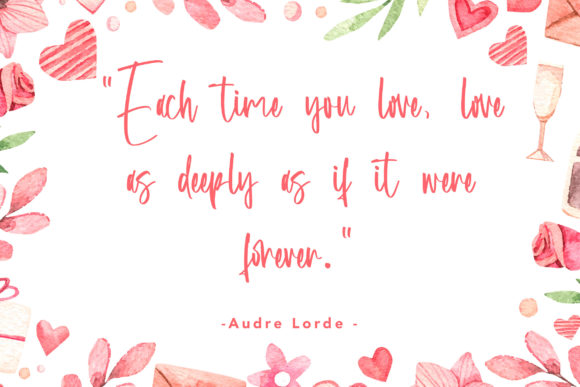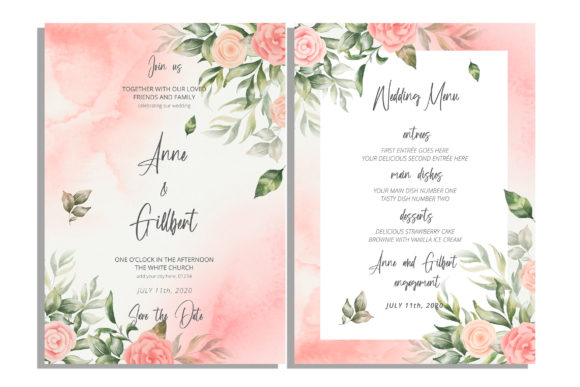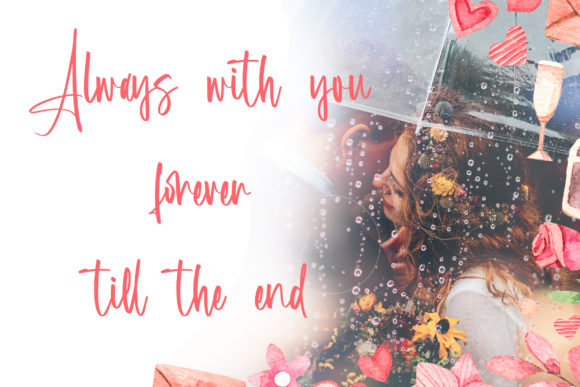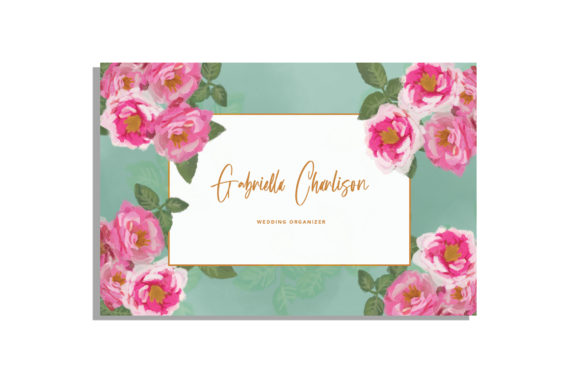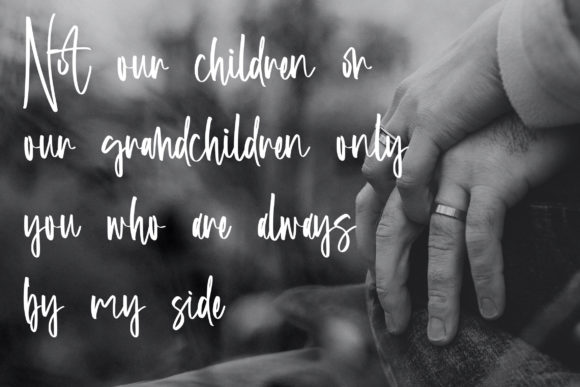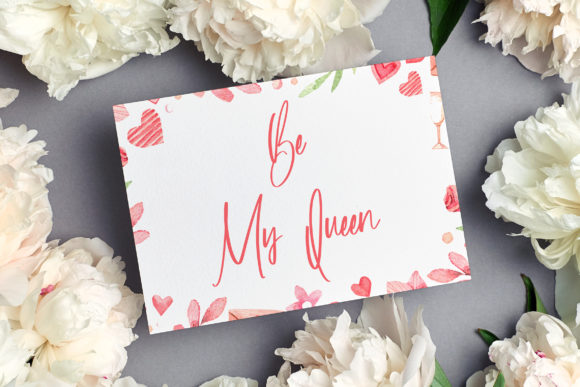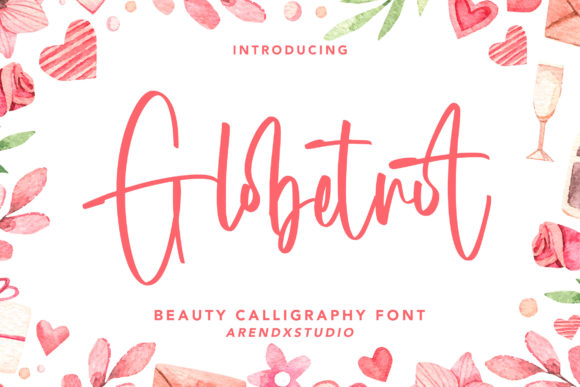
Introducing Globetrot Font: Elevate Your Designs with Elegance
Are you on the hunt for a font that exudes elegance and sophistication? Look no further than Globetrot Font, a stunning handwritten font that is sure to capture your heart. With its flowing lines and timeless style, Globetrot is the perfect addition to any design project. In this article, we’ll dive into the world of Globetrot Font, exploring its unique features, and how you can use it to create breathtaking designs.
What is Globetrot Font?
Globetrot Font is a beautiful, handwritten font that boasts an elegant touch. Its unique, flowing lines make it stand out from other fonts, giving it a distinct and memorable style. Whether you’re working on a branding project, creating social media graphics, or designing a website, Globetrot Font is sure to make a lasting impression.
Key Features of Globetrot Font
- Elegant and Sophisticated: Globetrot Font is designed to add a touch of elegance to your designs. Its refined lines and classic style make it perfect for projects that require a level of sophistication.
- Flowing Handwritten Style: The font’s handwritten style gives it a personal and organic feel, making it perfect for designs that require a human touch.
- Distinct and Timeless: Globetrot Font’s unique style ensures that your designs will stand out from the crowd. Its timeless quality means that it won’t go out of style anytime soon, making it a great investment for designers and crafters.
- Versatile: Globetrot Font can be used for a wide range of design projects, from branding and advertising to social media graphics and website design.
How to Use Globetrot Font in Your Designs
Globetrot Font is incredibly versatile, making it easy to incorporate into your design projects. Here are a few ideas to get you started:
- Branding and Logo Design: Use Globetrot Font to create stunning logos and branding materials that exude elegance and sophistication.
- Social Media Graphics: Add a touch of elegance to your social media graphics, including Facebook posts, Instagram stories, and Twitter headers.
- Website Design: Use Globetrot Font to create beautiful website headers, titles, and other design elements that require a level of sophistication.
- Stationery and Packaging: Globetrot Font is perfect for designing stationery, packaging, and other marketing materials that require a personal touch.
Tips for Getting the Most Out of Globetrot Font
To get the most out of Globetrot Font, here are a few tips to keep in mind:
- Experiment with Different Sizes: Globetrot Font looks great in a variety of sizes, from large headings to smaller body text.
- Play with Color: The font’s elegant style looks great in a range of colors, from bold and bright to soft and pastel.
- Combine with Other Fonts: Globetrot Font pairs well with a range of other fonts, making it easy to create stunning font combinations.
Globetrot Font is a stunning handwritten font that is sure to elevate your designs. With its elegant touch, flowing lines, and timeless style, it’s the perfect addition to any design project. Whether you’re a designer, crafter, or DIY enthusiast, Globetrot Font is a must-have font that will help you create spectacular designs. So why wait? Fall in love with Globetrot Font today and take your designs to the next level!